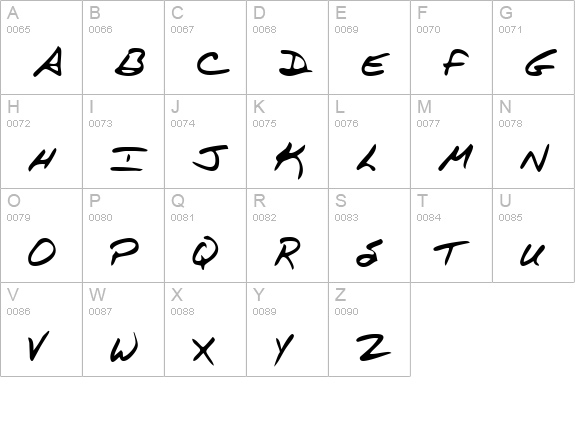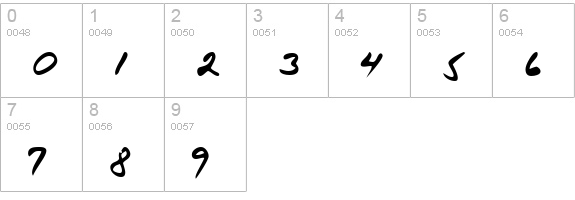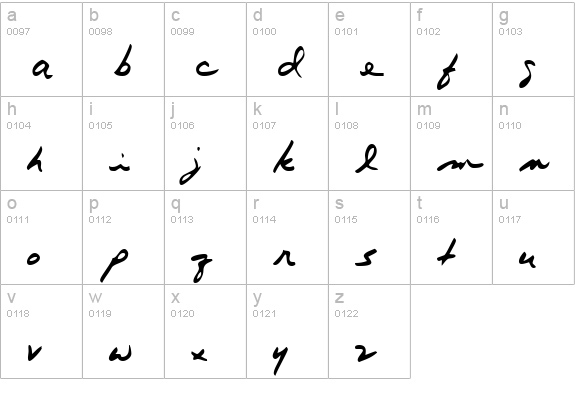
TerrysHand Regular Font Details
TerrysHand Regular is the standard, neutral variant in the TerrysHand typeface family \xE2\x80\x94 well suited to general body text, paragraphs, and standard typographic work.
TerrysHand Regular font is a stunning display typeface that adds a touch of elegance and sophistication to any design project. With its stylish and graceful letterforms, this font captures the essence of handwritten calligraphy. Each stroke is meticulously crafted, creating a seamless flow that is both visually pleasing and easy to read. This font is perfect for a wide range of design applications, including branding, packaging, invitations, and more. Whether you're creating a logo for a high-end boutique, designing wedding stationery, or adding a personal touch to your blog, TerrysHand Regular font will elevate your designs to the next level. One of the best things about TerrysHand Regular font is that it is freely available to download at FontsMarket.com. This means that you can add this beautiful font to your collection without breaking the bank. With just a few clicks, you can enhance your design projects with a touch of sophistication and elegance. In addition to its stunning visual appeal, TerrysHand Regular font is also highly versatile. It comes in a variety of weights and styles, allowing you to customize it to suit your specific design needs. Whether you prefer a bold and impactful look or a more delicate and refined aesthetic, this font has you covered. So why wait? Download TerrysHand Regular font today and unleash your creativity. With its timeless elegance and wide range of design options, this font is sure to become a staple in your font collection. Get ready to impress your audience with stunning typography that truly stands out.